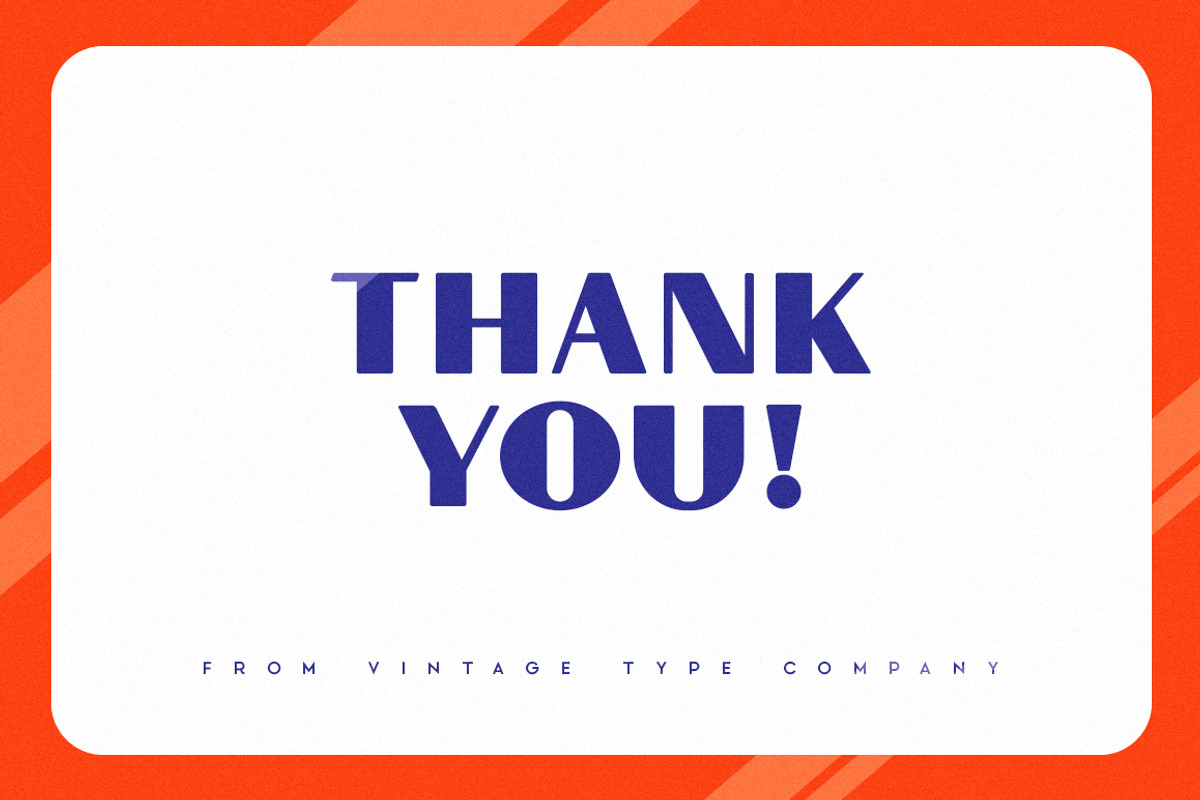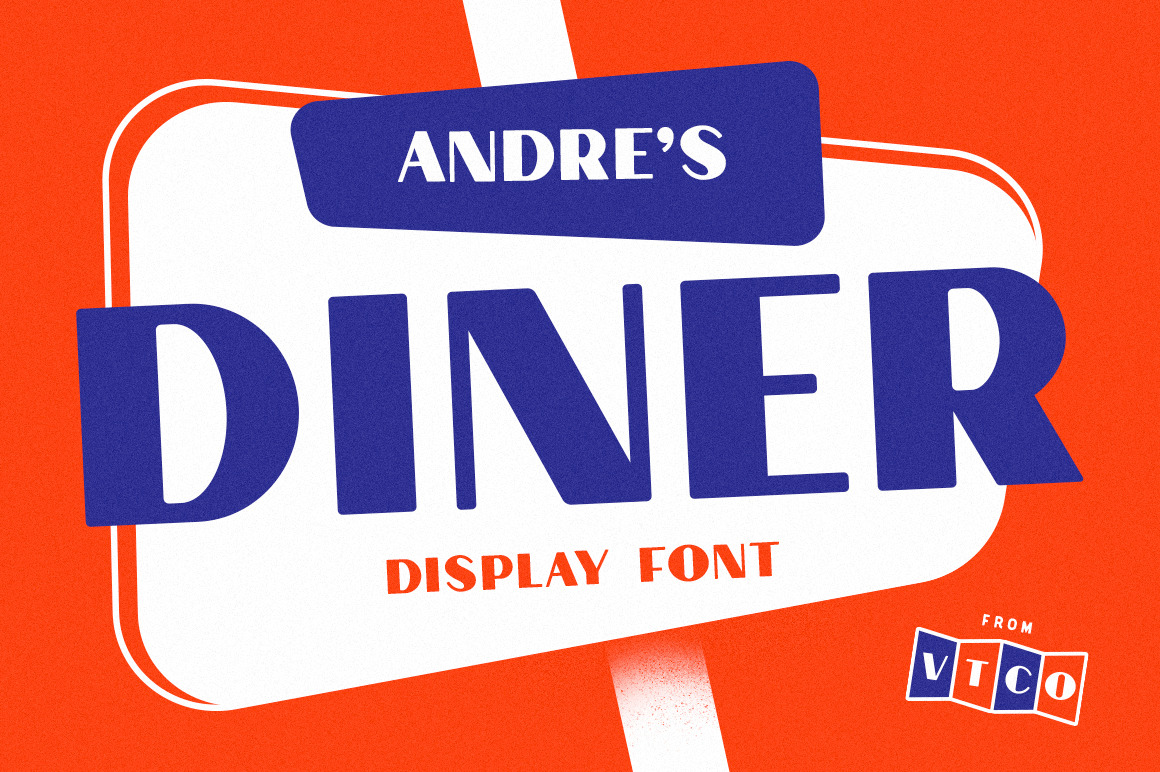
Andre's Diner Display Font
A new deco-inspired display font from Vintage Type Company.
This bold, brave display font was based off of the hand painted, art-deco typefaces commonly found across America on old retro diner signs and billboards.
It sports smooth corners, and extreme stroke contrast for ease of legibility as well as comes equipped with multilingual support for an array of Western-Euro languages.